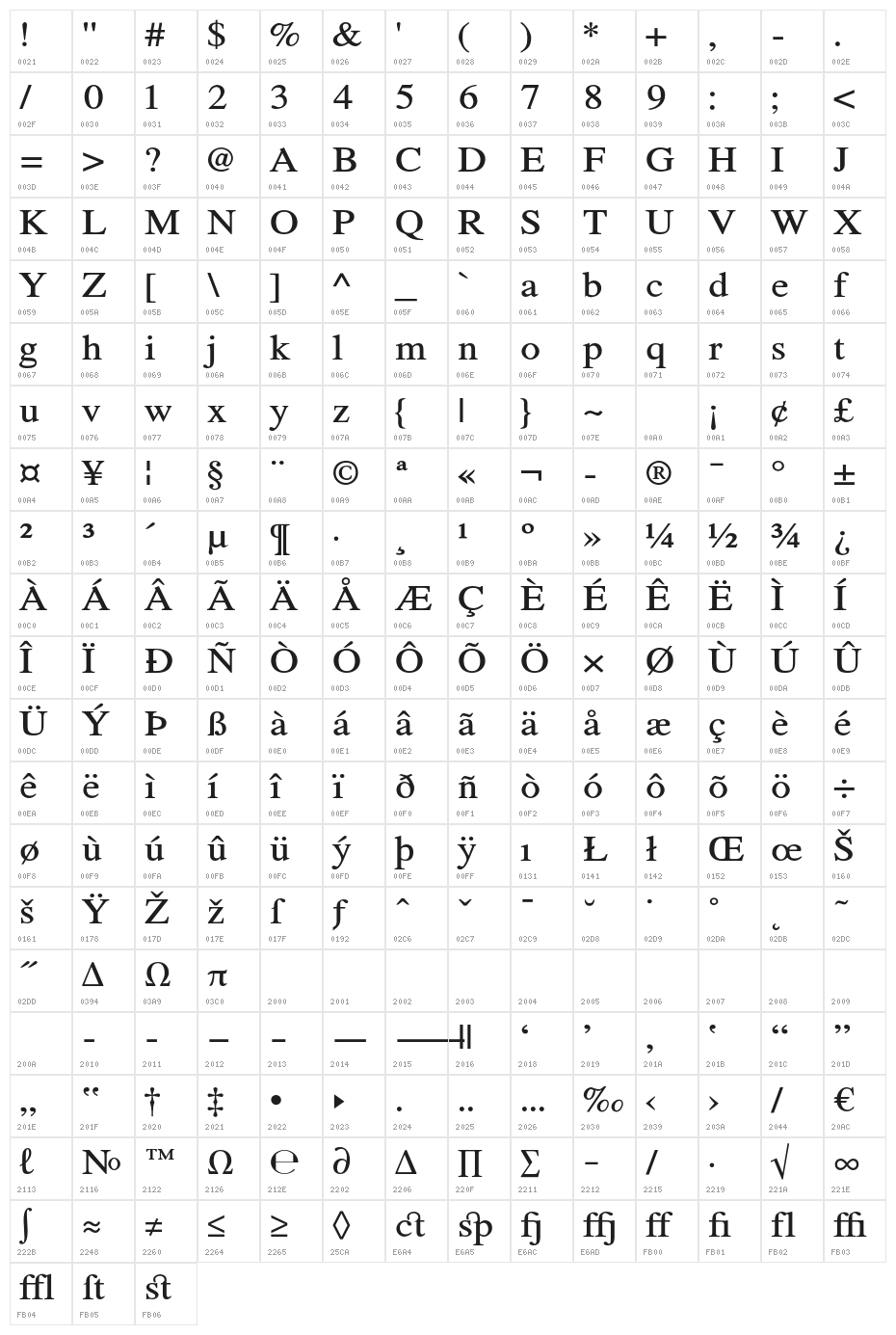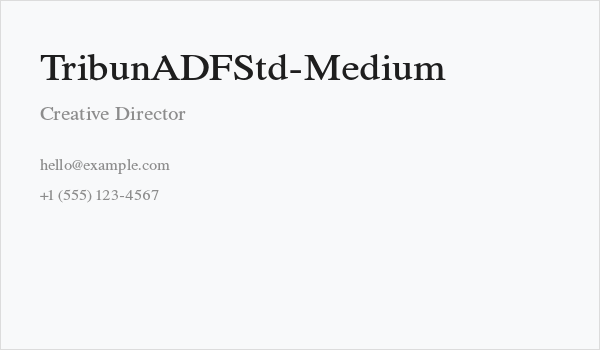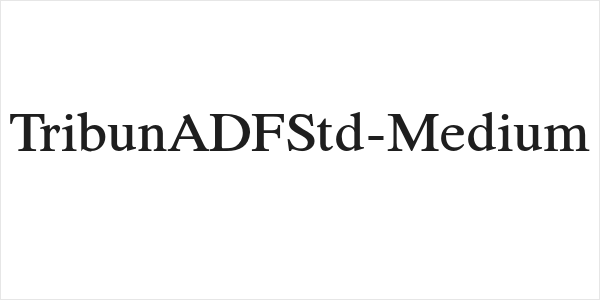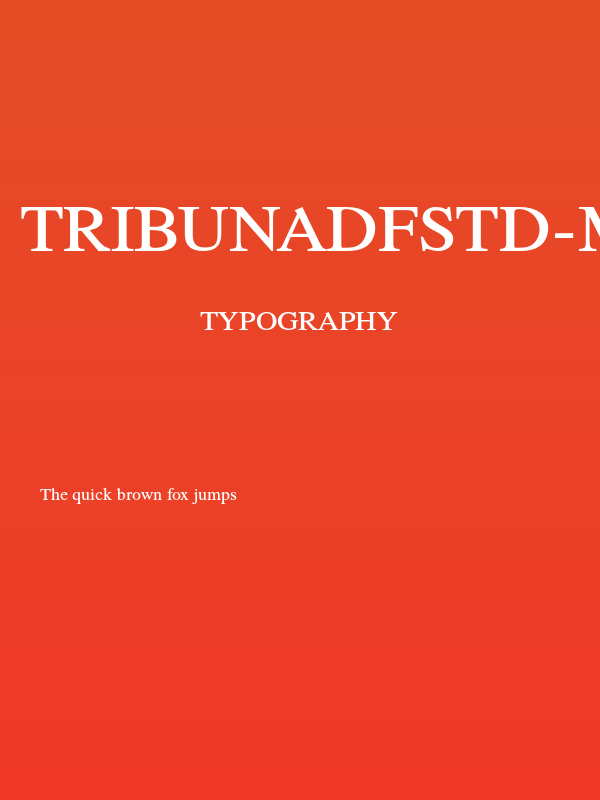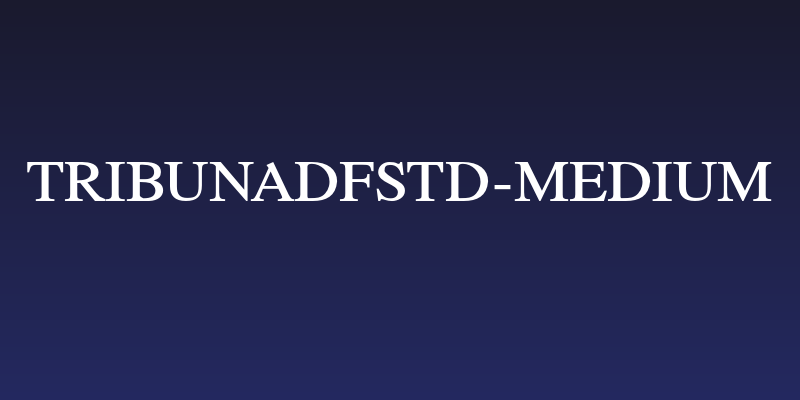
TribunADFStd-Medium Font
TribunADFStd-Medium Description
This font features a classic serif style with a medium weight, offering a balanced and elegant appearance. The serifs are pronounced, providing a traditional and formal look. The uppercase letters are bold and commanding, while the lowercase letters maintain a consistent and harmonious flow. The numerals are clear and legible, making them suitable for various applications. The special characters are well-defined, adding versatility to the font's usage. Overall, this font exudes a timeless and sophisticated charm, ideal for projects requiring a touch of class and refinement.
| Proposed Projects | Ideal for editorial design, book covers, formal invitations, and branding projects that require a traditional and sophisticated touch. |